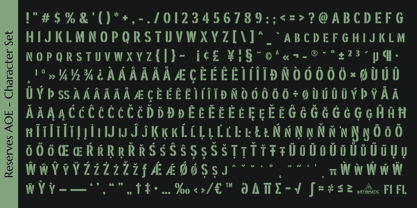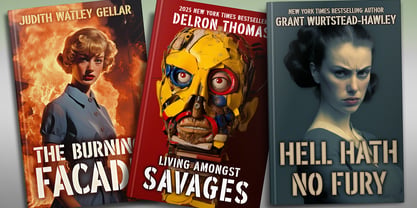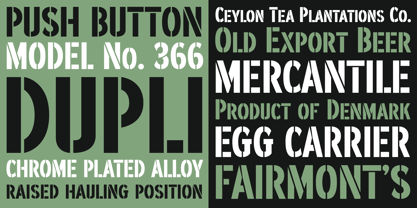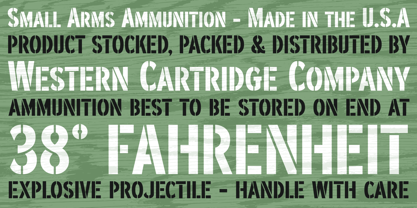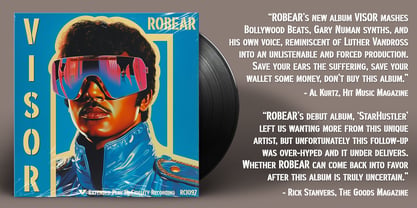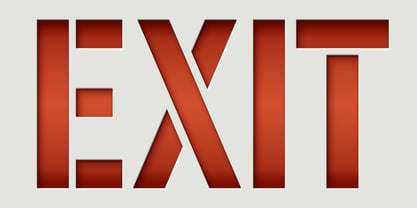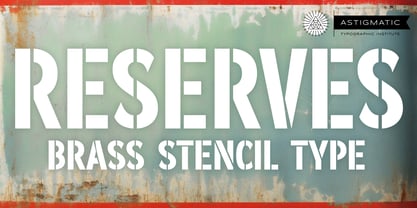
Reserves AOE
by Astigmatic
The Reserves AOE Font Family was designed by Brian J. Bonislawsky and published by Astigmatic. Reserves AOE contains 1 styles. More about this family
AOETI ARCHIVAL RECORD ENTRY — STENCIL SERIES 431-B Preserved Specimen of Early Industrial Lettering This alphabet, cataloged as Reserves AOE, is preserved as a representative example of industrial-era typographic engineering used in manufacturing yards, military depots, and freight logistics from the mid–20th century. The letterforms demonstrate a geometric rigidity, constructed from sharp verticals, angled cuts, and deliberate segmentation intended to prevent material loss or obstruction when applied through metal or fiberboard stencils. Each glyph is built with unbroken weight distribution across heavy block shapes, interrupted only by precise separation channels that define the characters’ internal structure. These cuts were essential for structural continuity during repeated application, ensuring that no counterform or enclosed shape detached under field use. The result is an alphabet that balances utility and bold visual authority. Uppercase and smallcaps characters exhibit a commanding presence, with wide shoulders and clean mechanical angles reminiscent of wartime supply markings and standardized equipment identification. The numerals are notable for their transport-grade clarity, designed for rapid reading at distance and under low-visibility conditions. Archival notes indicate their use on storage drums, transit crates, and early computing punch-card housings. Though its origins are functional, Stencil Series 431-B carries an aesthetic of structured permanence — a design born from hard material constraints yet refined enough to withstand decades of operational wear. Today, it survives as a typographic artifact of an era defined by precision manufacturing, logistical discipline, and the austere beauty of applied industrial design.
Designers: Brian J. Bonislawsky
Foundry: Astigmatic